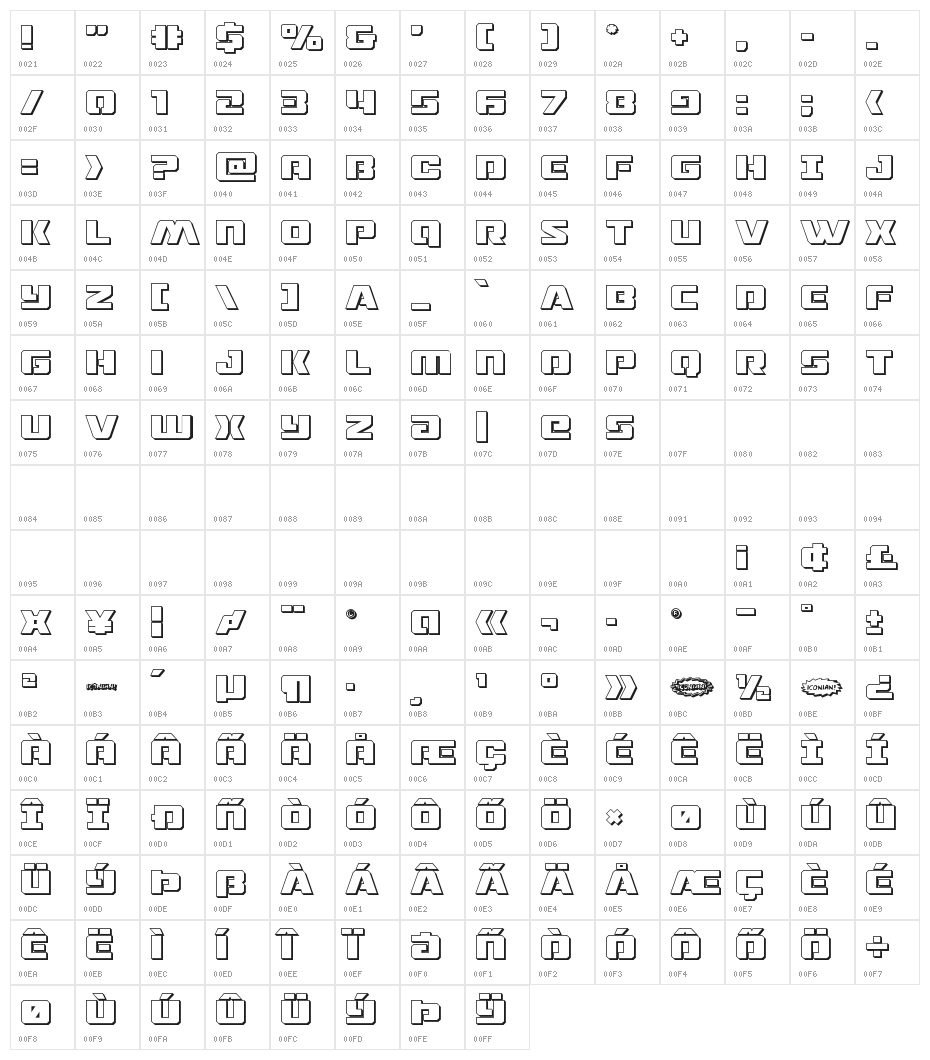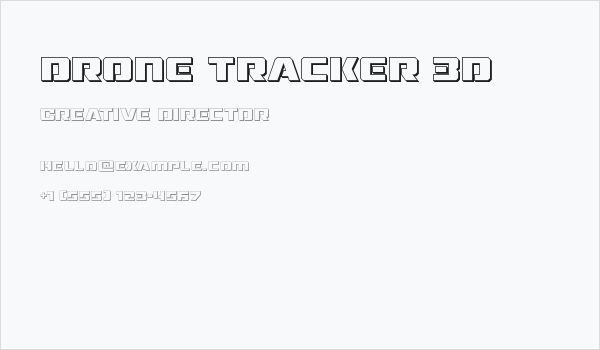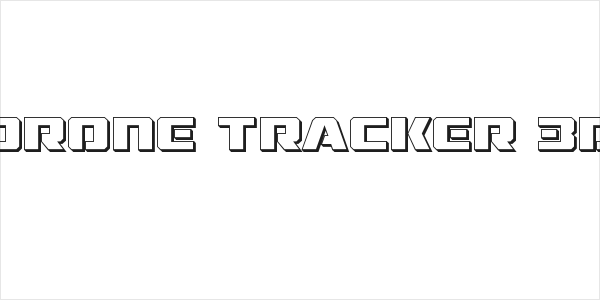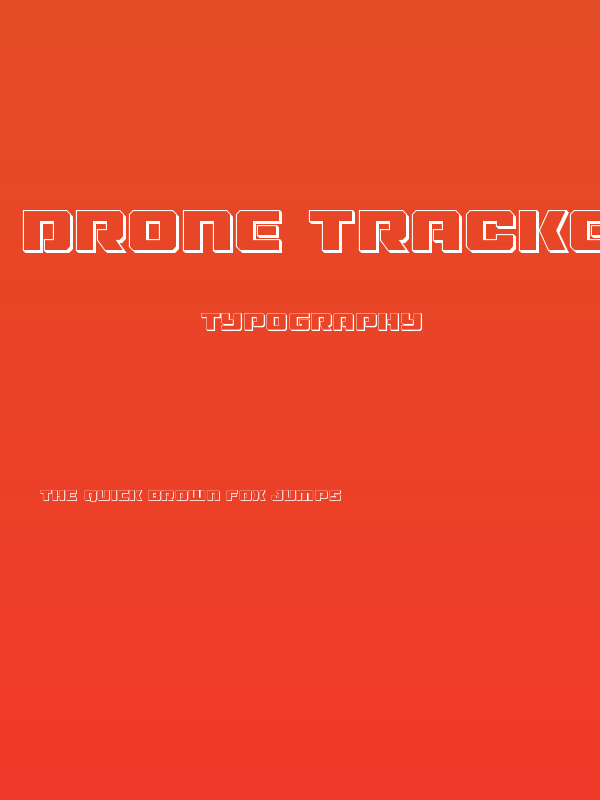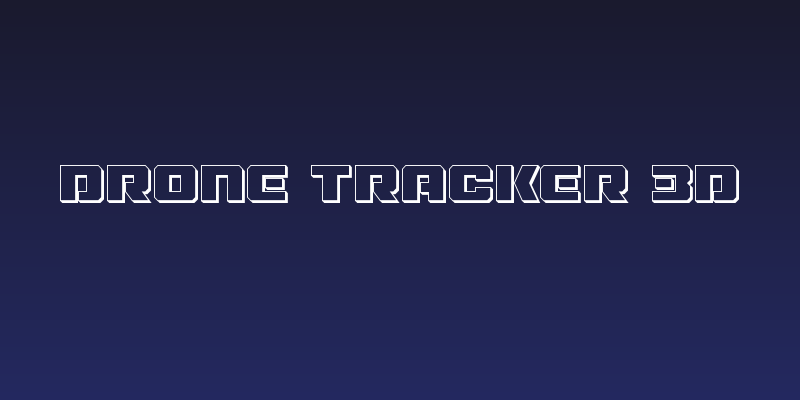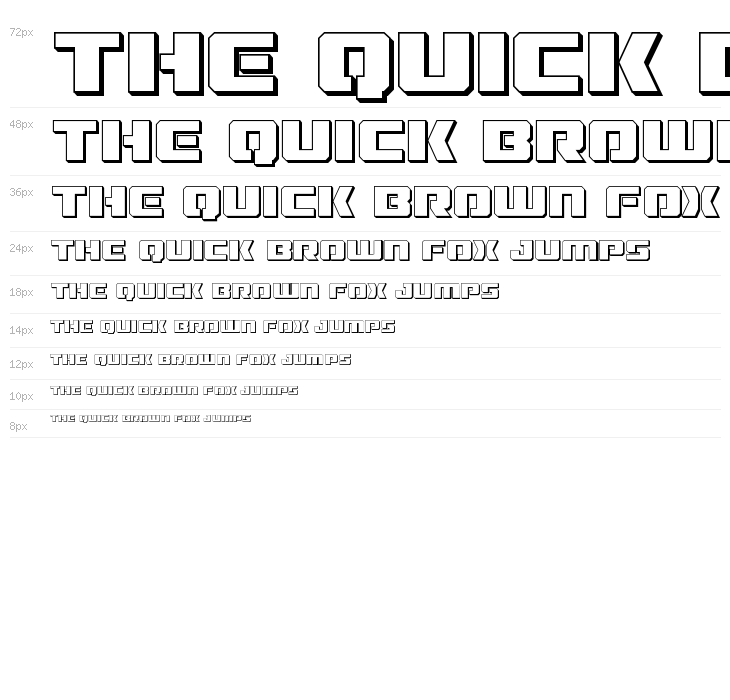
Drone Tracker 3D Font
Drone Tracker 3D Description
This font features a bold, three-dimensional style with a futuristic and geometric design. Each character is outlined with a shadow effect, giving it a distinct 3D appearance. The letters are uppercase and have a blocky, angular form, which adds to the modern and tech-inspired aesthetic. The numbers and special characters maintain the same design consistency, ensuring a cohesive look across all glyphs. This font is ideal for projects that require a strong visual impact and a contemporary feel.
| Proposed Projects | Ideal for technology branding, video game titles, sci-fi movie posters, and modern digital interfaces. |